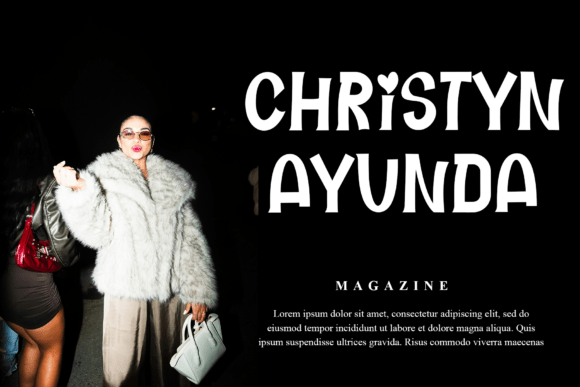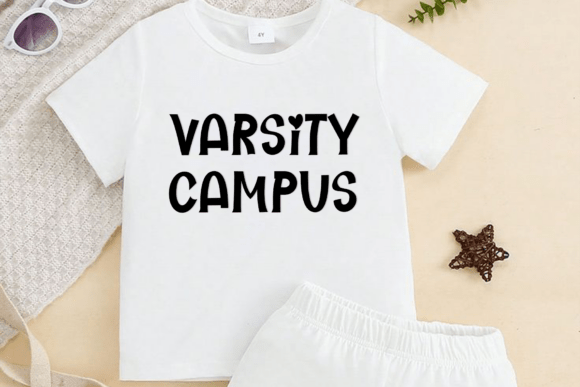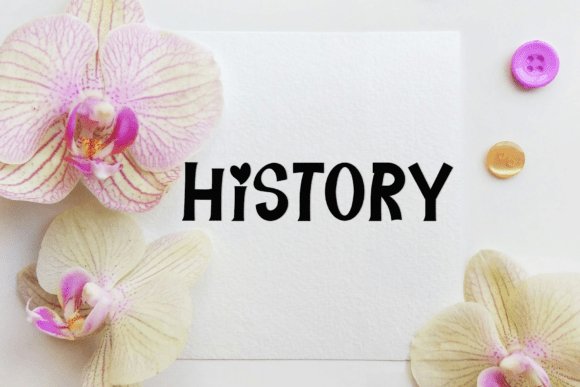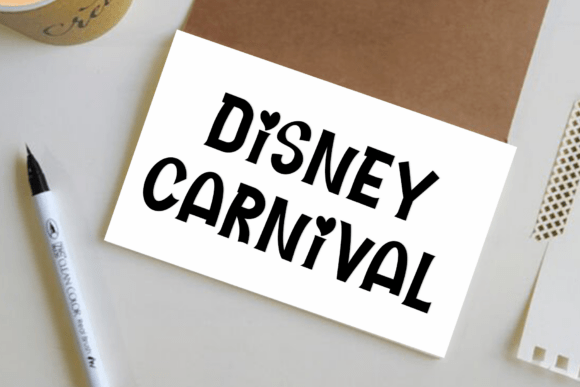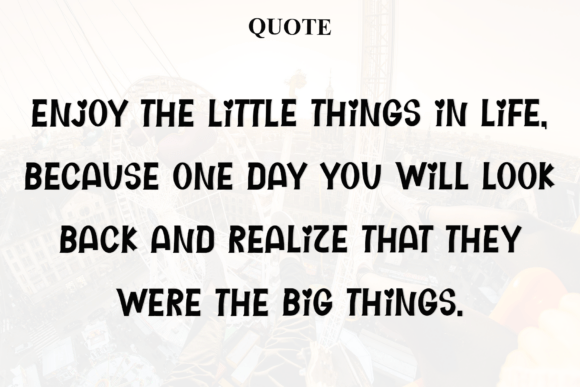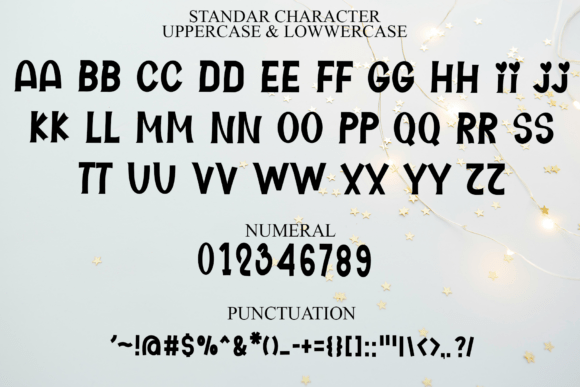
Introduction to Little Disney Font
Little Disney is a festive and merry typeface that captures the spirit of the holiday season.
Key Features of Little Disney Font
Why Choose Little Disney Font?
Little Disney Font offers exceptional quality and versatility, making it a valuable addition to your design toolkit. Whether you’re creating for personal projects or commercial use, Little Disney Font delivers professional results.